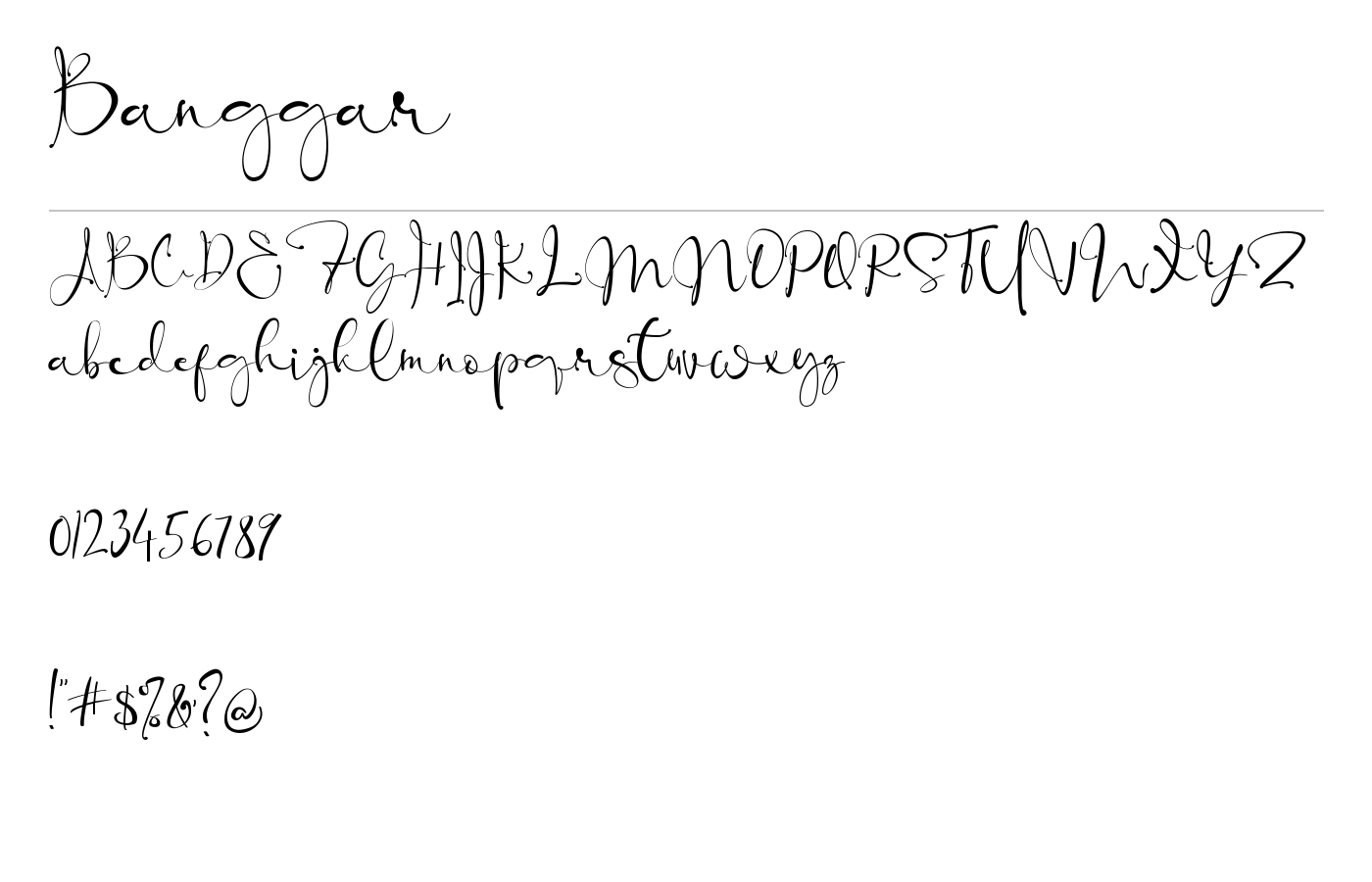
Banggar is a delicate, handwritten script font with an elegant and whimsical style characterized by tall, flowing letterforms and graceful curves. Its light weight and airy spacing make it perfect for creative, feminine designs where a personal, artistic touch is desired, such as invitations, branding, or decorative headings. With its playful yet refined personality, Banggar adds charm and sophistication to projects needing a light, expressive script.
Banggar Font
About Banggar Font
| Font family | Banggar Font |
| Designer | Aldedesign 2018 |